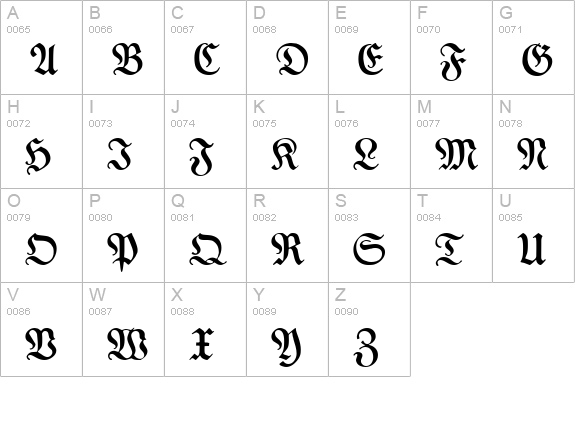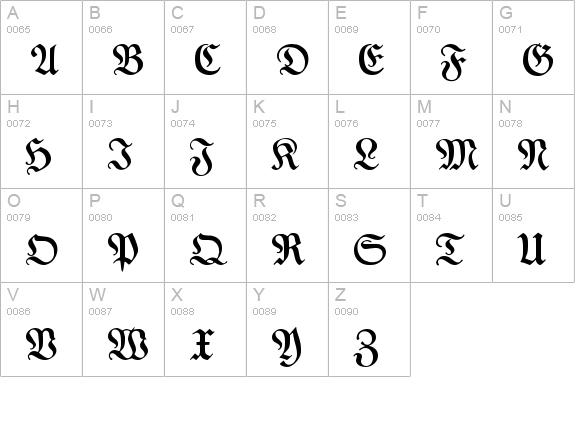
TypographerFraktur Medium Font Details
TypographerFraktur Medium is a balanced, medium-weight variant in the TypographerFraktur typeface family \xE2\x80\x94 well suited to sub-headlines, navigation, and balanced editorial work.
TypographerFraktur Medium is a visually captivating font that exudes elegance and sophistication. With its intricate and ornate letterforms, this font is perfect for adding a touch of vintage charm to any design project. The medium weight of the font strikes a perfect balance between readability and visual impact, making it suitable for various applications. The meticulously crafted letter shapes of TypographerFraktur Medium showcase the true artistry of typography. Each character is carefully designed with sharp angles and intricate details, resulting in a typeface that is both distinctive and timeless. The precise spacing and proportions further enhance the overall aesthetic appeal of this font. One of the most appealing aspects of TypographerFraktur Medium is that it is freely available to download at FontsMarket.com. This means that designers and typographers can easily access this stunning font without any cost. The generous availability of this font allows for greater creative freedom and flexibility in design projects. Whether you are working on a vintage-inspired poster, an elegant wedding invitation, or a sophisticated branding project, TypographerFraktur Medium is sure to elevate your design to new heights. Its unique character and versatility make it a valuable addition to any designer's toolkit. Embrace the timeless beauty and intricate details of TypographerFraktur Medium and let your creativity soar. Download this remarkable font for free at FontsMarket.com and unlock endless design possibilities.